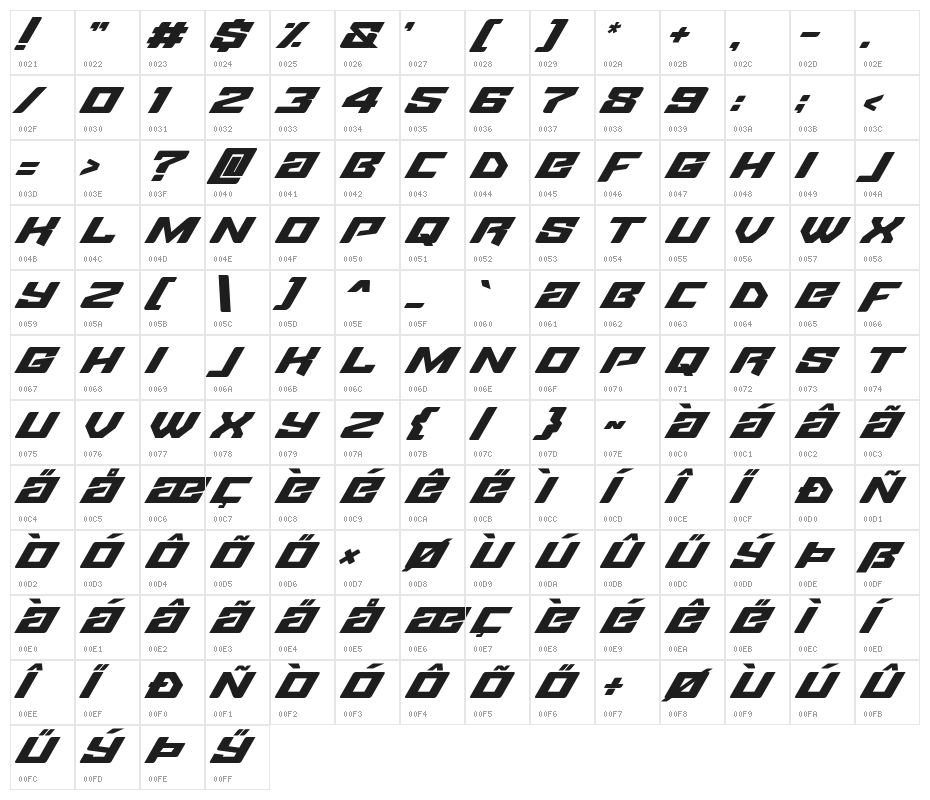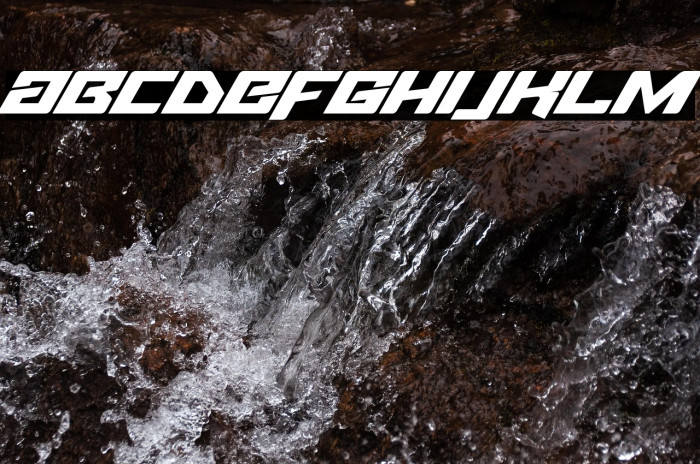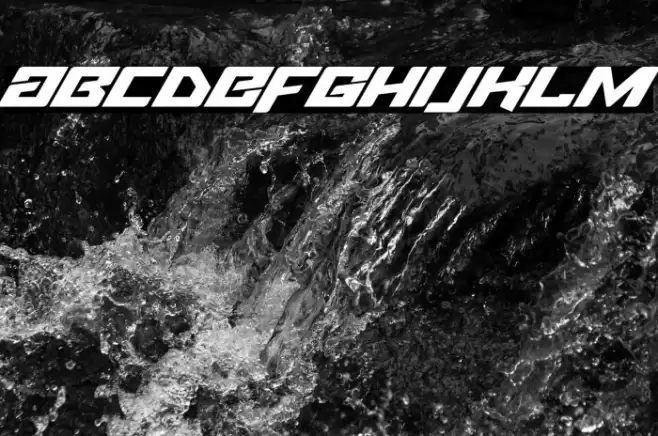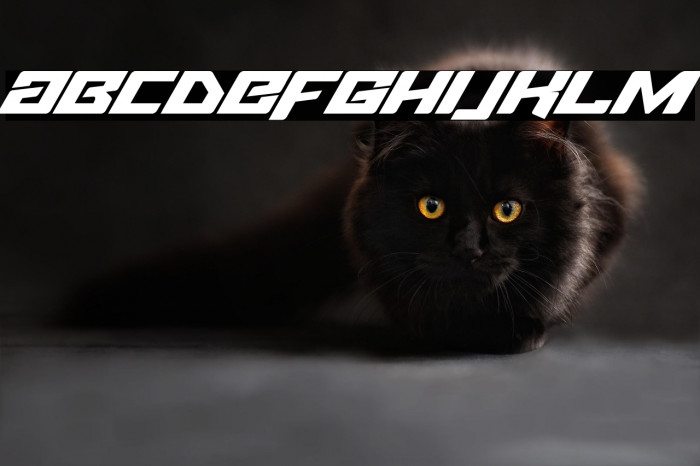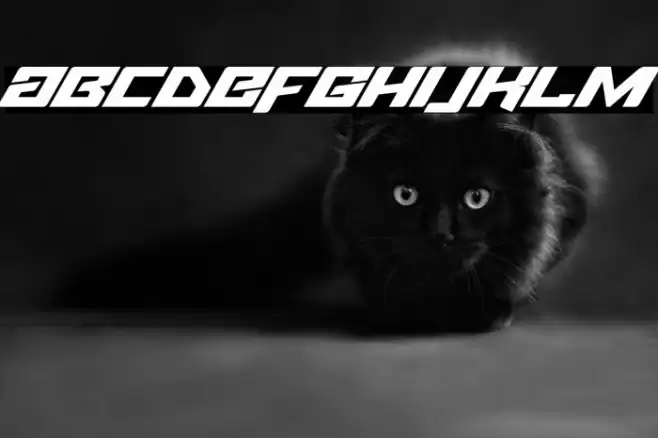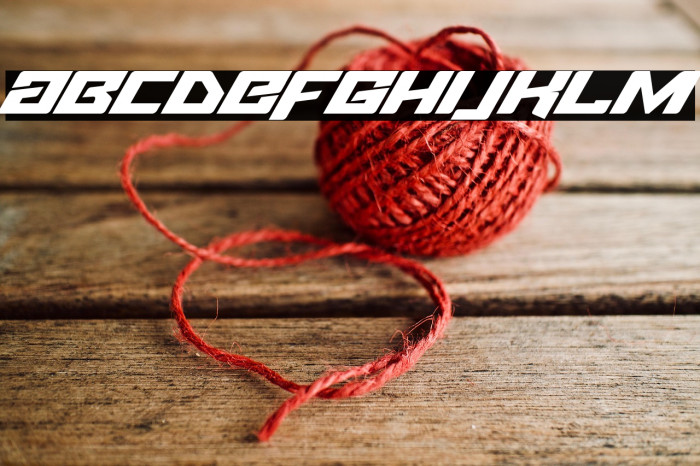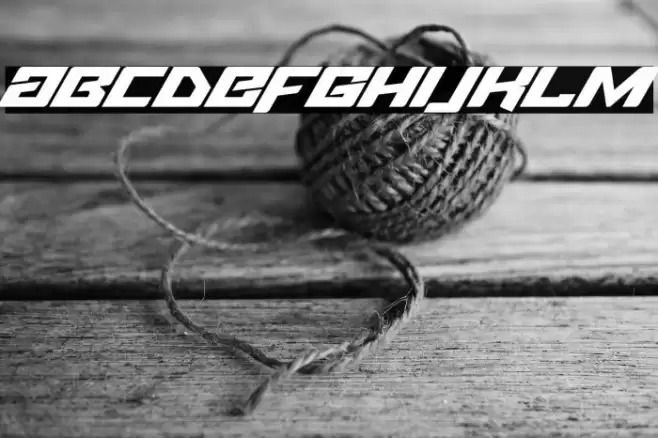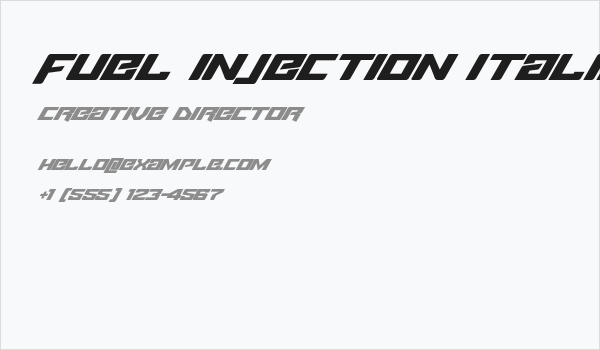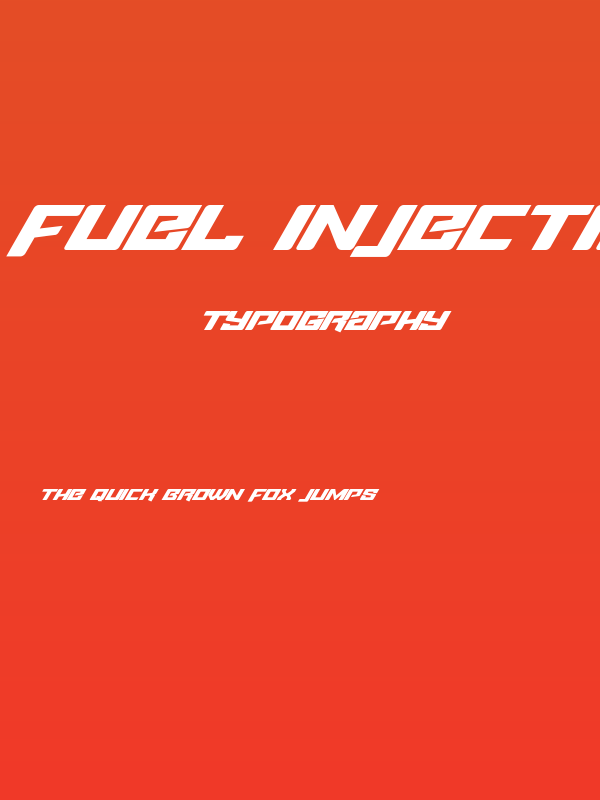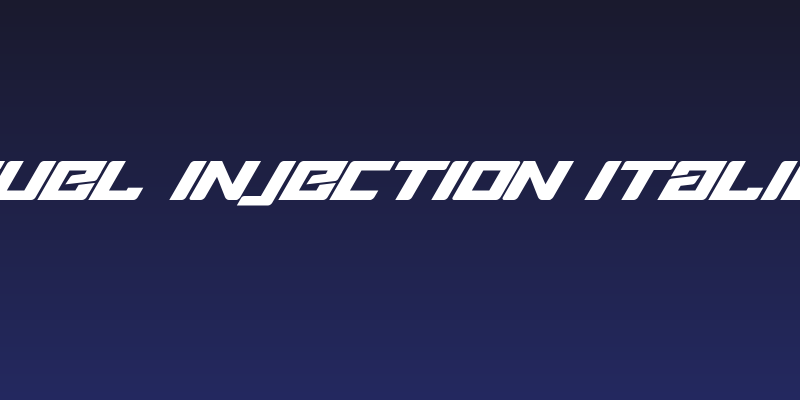
Fuel Injection Italic Font
Fuel Injection Italic Description
This font exudes a dynamic and futuristic vibe, characterized by its sharp, angular lines and italicized stance. The letters are bold and impactful, with a distinct slant that suggests movement and speed. The geometric shapes and clean edges give it a modern, tech-inspired appearance. The numbers and special characters maintain this cohesive style, ensuring consistency across all elements. This font is ideal for projects that require a sense of urgency or modernity, such as automotive branding, tech startups, or sports-related designs.
| Proposed Projects | Ideal for automotive branding, tech startups, sports designs, and dynamic advertising. |